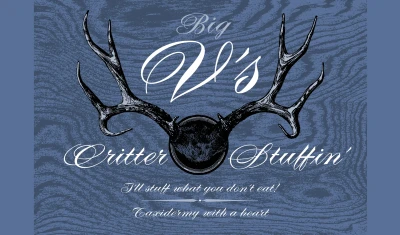
Magnific Font
Magnific Font is perfect for luxury brand communications, premium product packaging, high-end fashion marketing, prestigious award ceremonies, upscale hospitality branding, elegant corporate presentations, sophisticated magazine layouts, exclusive membership materials, distinguished event promotions, and magnificent brand identity systems. Its grandiose character makes it exceptionally effective for projects requiring premium sophistication and magnificent appeal that resonates with affluent audiences seeking extraordinary luxury experiences and distinguished brand encounters.
What makes Magnific Font exciting is its spectacular embodiment of grandeur and premium sophistication that commands attention through sheer elegance and magnificent presence. The font features majestic letterforms with refined proportions and commanding character relationships that create instant association with luxury and exceptional quality. Its distinctive personality communicates excellence, prestige, and sophisticated refinement, making it perfect for brands wanting to establish premium market positioning while connecting with discerning audiences who appreciate extraordinary craftsmanship and magnificent experiences.
Magnific Font family encompasses various luxury variations including Light, Regular, Medium, Bold, and potentially Ultra Bold alternatives, along with premium decorative elements and magnificent ornamental graphics. The family may also feature different elegance levels, luxury symbols, and sophisticated decorative borders. Each family member maintains the signature magnificent character while offering different degrees of grandeur for comprehensive luxury branding systems and premium communications.
The remarkable luxury craftsmanship of Magnific Font showcases meticulous attention to magnificent letterform construction, optimal impact for premium applications, and superior design quality that captures genuine luxury atmosphere and exceptional sophistication. Magnific Font Free Download offers designers an exceptional opportunity to experience this premium luxury typeface before commercial licensing. The font's comprehensive character set includes luxury symbols, premium notation, and extensive international language support for global high-end applications.
Creative professionals appreciate Magnific Font for its ability to create spectacular luxury communications that resonate with affluent audiences and premium brand communities seeking genuine magnificent experiences and extraordinary sophisticated encounters. Its versatile nature works beautifully across both digital and print applications, from elegant website headers to luxurious packaging materials. The font's magnificent presence connects with consumers who value exceptional quality and premium brand experiences.
The technical excellence of Magnific Font includes advanced OpenType features, optimized rendering for luxury displays, and consistent magnificent effects that maintain premium authenticity across different media platforms. Its robust construction ensures reliable performance in various high-end applications, from detailed luxury materials to bold premium event signage, making it an invaluable asset for brands celebrating magnificent excellence and establishing extraordinary connections through authentic luxury typography that honors the finest traditions of premium sophistication.